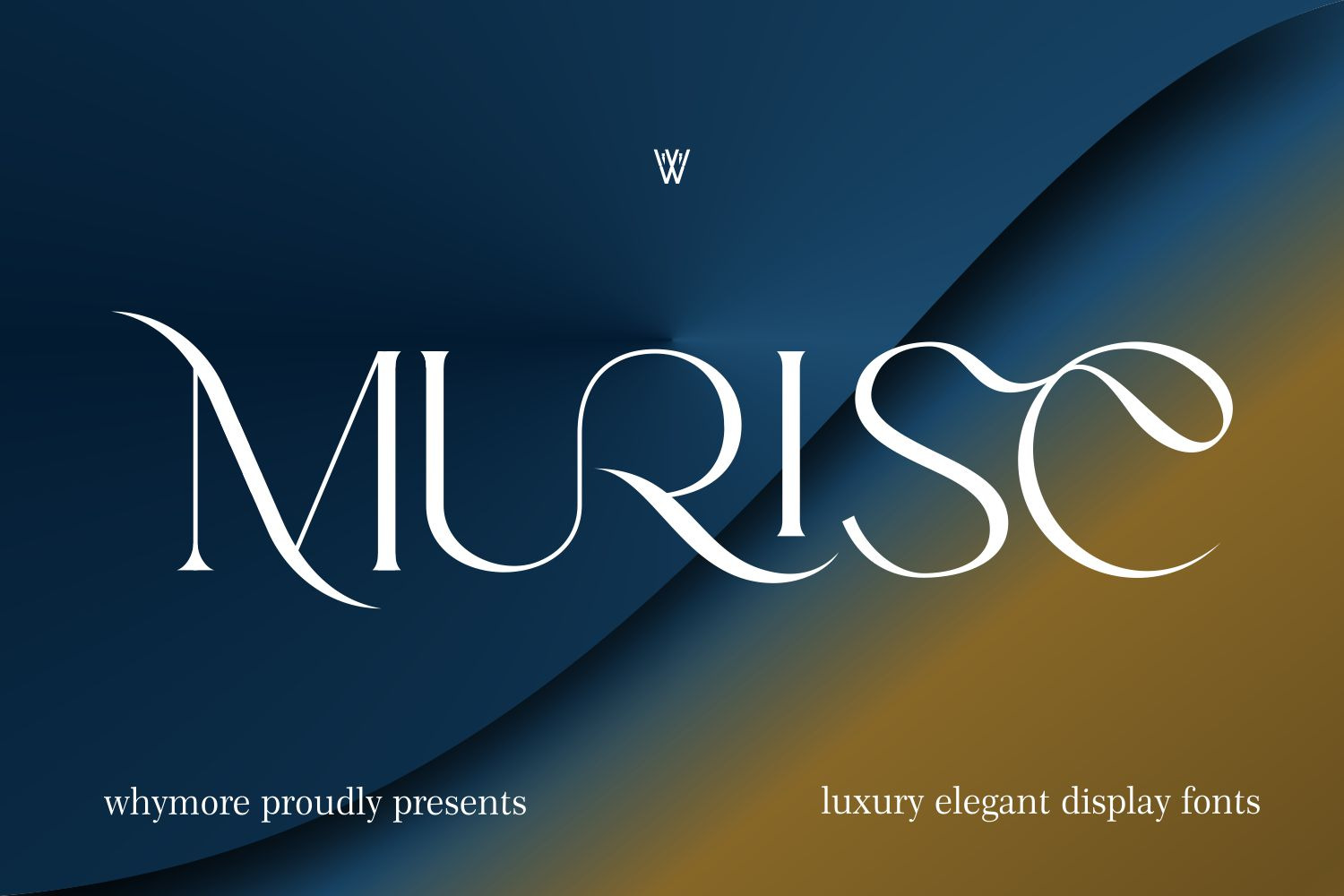
Murise Luxury Elegant Serif Font
Murise is a refined luxury serif font crafted to deliver elegance, sophistication, and modern class in every design. With its high-contrast strokes, graceful curves, and distinctive letterforms, Murise brings a premium aesthetic perfect for high-end branding.
Designed for designers who seek timeless beauty and editorial excellence, this font works beautifully in fashion branding, luxury logos, magazine layouts, product packaging, and upscale marketing materials.
Murise combines classic serif structure with contemporary styling, making it highly versatile for both digital and print use.
Luxury branding & logos Fashion & beauty editorials Perfume & cosmetic packaging Wedding invitations & stationery High-end social media content Elegant website typography
Create a strong, elegant impression with Murise — where luxury meets modern typography.